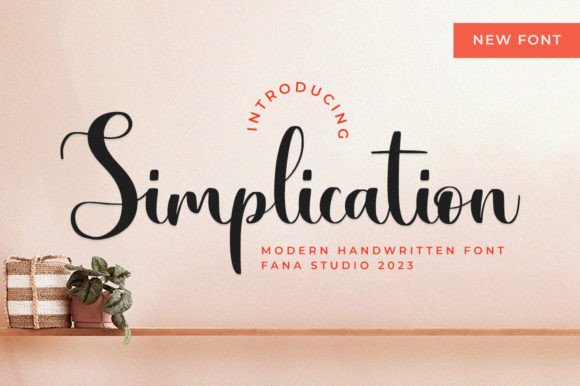
Behold, the Simplication Font - a meticulously crafted script font that exudes elegance, class, and modernity, ready to transform your creative visions into breathtaking realities.
Step into a world of infinite possibilities, where your imagination takes center stage and artistry knows no bounds. With the Simplication Script, your designs will radiate with a personal touch, captivating the hearts and minds of your audience.
With every stroke of this exquisite font, feel the weight of history and tradition converge in perfect harmony. Embrace the timeless essence of script typography, a testament to the enduring power of handwritten artistry.
Indulge in a symphony of elegance, where each letter dances gracefully upon the page, evoking a sense of sophistication and refinement. Let your words flow effortlessly, leaving an enchanting trail of beauty in their wake.
The Simplication Script is more than just a font; it's an invitation to embark on a creative odyssey, a journey where your ideas take flight and your artistic expression knows no limits.
Unleash the boundless versatility of the Simplication Script, a font that effortlessly adapts to a myriad of projects, from the delicate intricacies of wedding invitations to the bold allure of branding and logos.
Craft social media posts that ignite engagement, leaving your followers spellbound by your captivating content. Design product packaging that whispers luxury and distinction, inviting customers to indulge in an unforgettable experience.
Elevate your photography with watermarks that add a touch of artistry and intrigue, transforming your images into captivating works of art. Create event invitations that exude a sense of timeless elegance, setting the tone for a truly memorable occasion.
With the Simplication Script, you hold the key to unlocking a world of creative potential, where every project becomes a masterpiece, every design a testament to your unique vision.
Step into the realm of the extraordinary, where the Simplication Script awaits to ignite your creativity and weave its magic into your every endeavor.